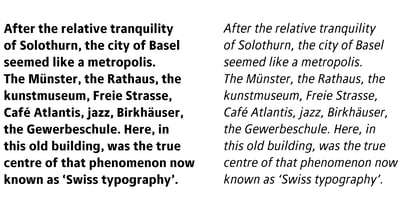
Lina™
by Roy Cole
The Lina typeface family was designed by Roy Cole and completed in 2003. The roman font, Lina 30, was drawn originally by hand and later its character set extended and digitally redrawn with the aid of Fontographer. The five additional fonts, 60, 90, and the italics 33, 66, 99 followed and were all produced digitally from scratch. Lina is characterized by economy, lightness and evenness of weight. The capitals and figures are not as tall as the lower-case but retain the latter’s weight, and the figures are designed to provide enhanced recognition. The characters are relatively large on the body and text and benefit from additional leading. Lina is essentially a typeface for text composition. Roy Cole's other typeface families are Zeta, Colophon and Coleface.
Roy Cole typography was formed in 2003 by the British typographer Roy Cole (1932–2012); a foundry dedicated to the development of sanserif typeface families that are characterized by their strong legibility, rhythmic elegance and timelessness. Cole was the only British compositor to study at the Allgemeine Gewerbeschule Basel (Basel School of Design) under the tutelage of Emil Ruder, the master of modern typography. In the 1950s–60s, the Gewerbeschule was host to a particularly formidable team of tutors – Robert Büchler, Kurt Hauert, Armin Hofmann, and Ruder himself – creating a typographic style that attained world recognition. This phenomenon, known as ‘Swiss Style’, became a hallmark of Cole’s practice, and continues to influence the work of many designers today. Following his studies at the Gewerbeschule, Cole worked for Birkhäuser AG, Basel, and Zollikofer & Co. AG, St Gallen, before gaining employment with a number of large design companies in the UK. In 1981 he established Cole Design Unit, designing hundreds of books and book covers for a range of prestigious publishers, museums and public libraries including Phaidon, Oxford University Press, Royal Academy of Arts, Ashmolean Museum, and the Bodleian Library. In 2003 he formed his own type foundry, Roy Cole typography, to develop sanserif typeface families that are notable for their strong legibility, making them particularly suitable for book design: Lina (2003), Zeta (2006), Colophon (2009), and Coleface (2012). Roy Cole maintained a life-long friendship with his contemporaries – in particular Bruno Pfäffli and Adrian Frutiger (Atelier Frutiger + Pfäffli in Paris, France) and Helmut Schmid (Helmut Schmid Design in Osaka, Japan) – involving many years of correspondence, collaboration and studio visits.